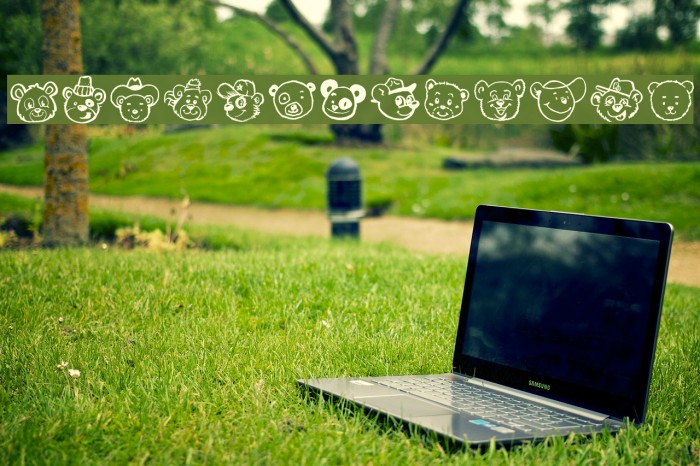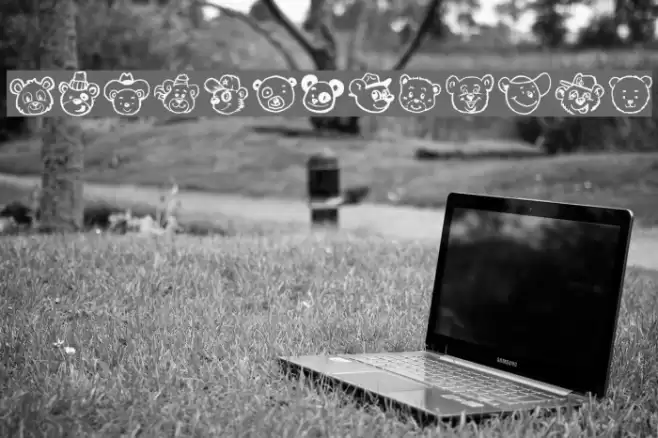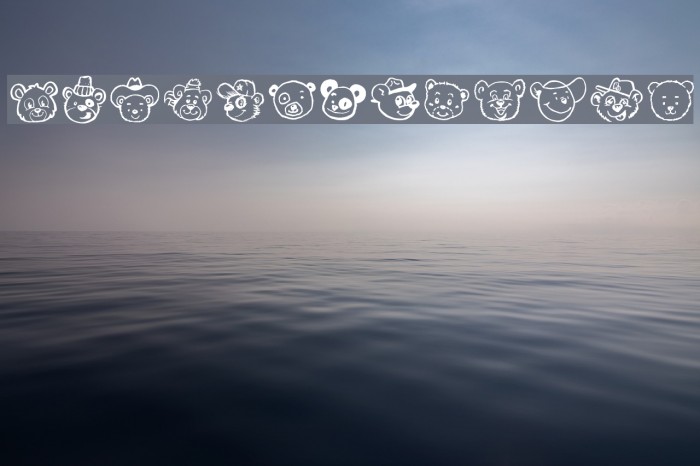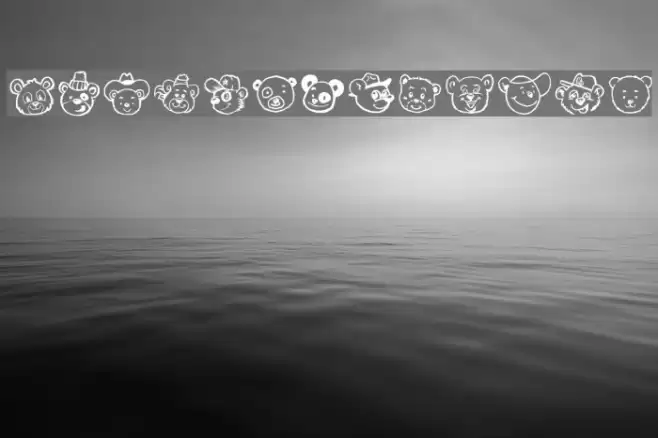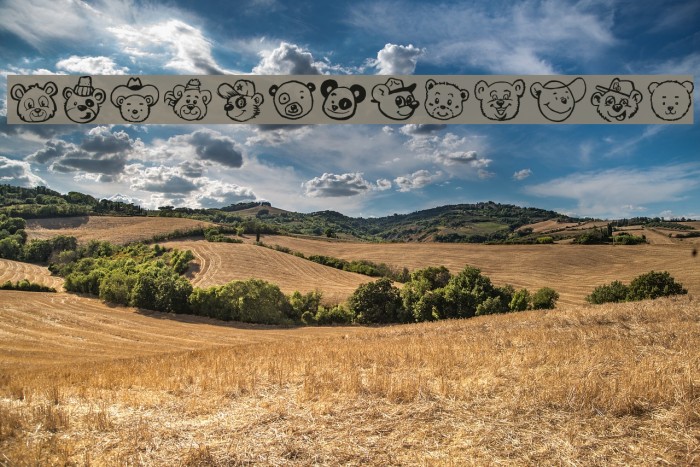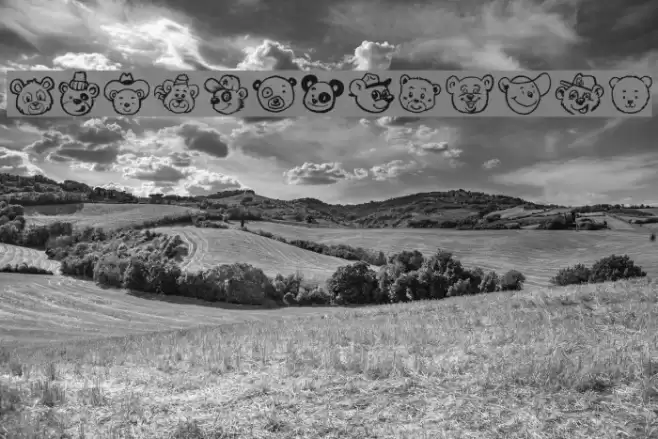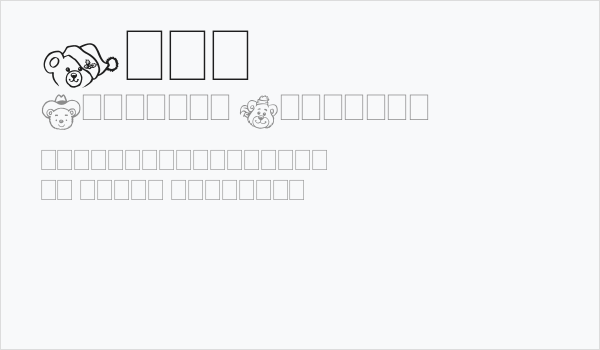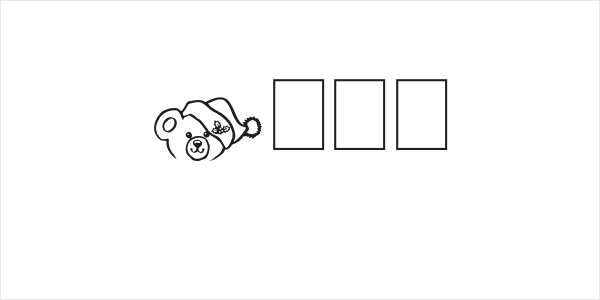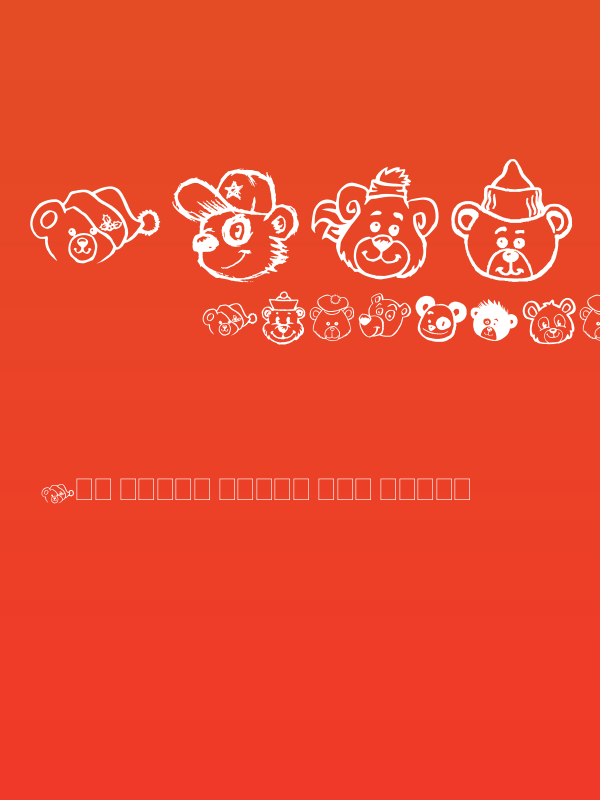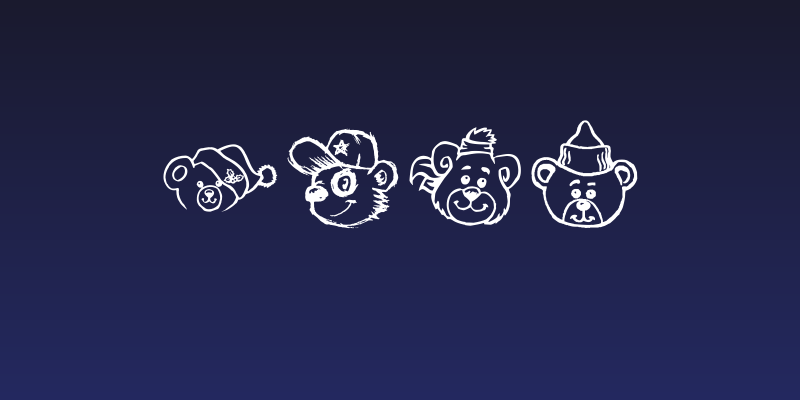
Tedz Font
Tedz Description
A playful and whimsical decorative font where each character is represented by a unique cartoon bear face, each with distinct expressions and accessories. The style is hand-drawn with varying line thickness, giving it a lively and informal appearance. The characters are easily distinguishable but not traditional letterforms, making it highly illustrative.
| Overall Style | Playful, Whimsical, Decorative |
| Use Case | Logos, Headlines, Posters, ChildrenΓ’β¬β’s materials |
| Proposed Projects | ChildrenΓ’β¬β’s books, party invitations, playful branding, educational materials, greeting cards. |